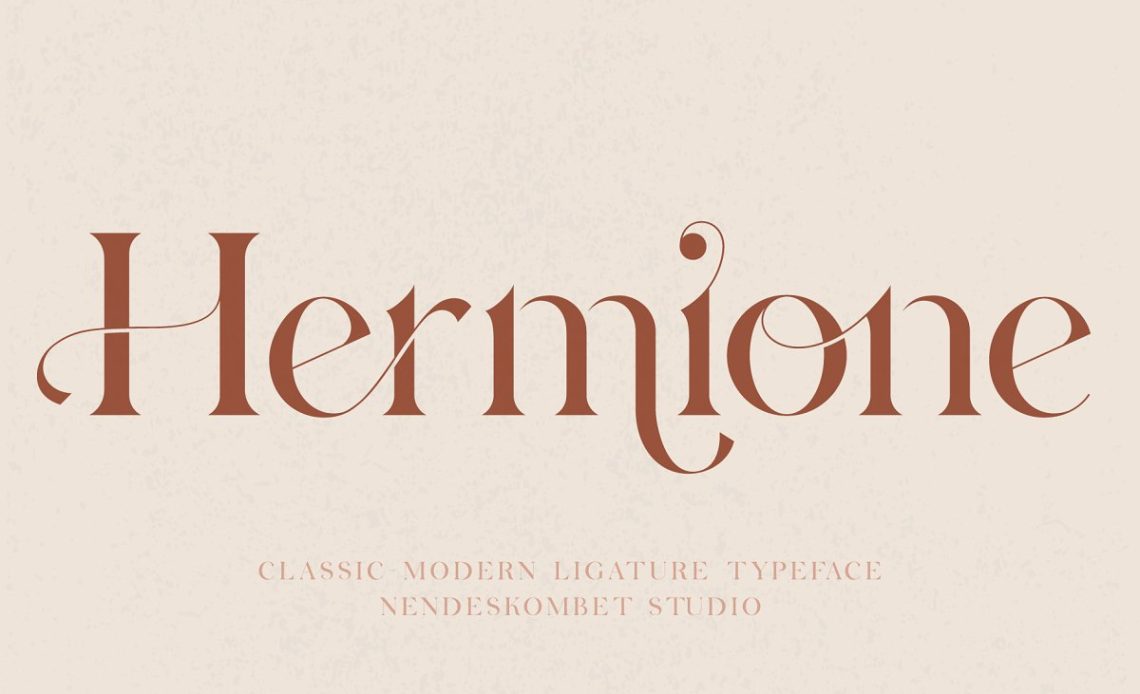
Are you looking for a font that will elevate your designs and stand out from the rest? Look no further than Hermione, the classic-modern ligature typeface created by Husain Assyahid of NendesKombet Studio.
Hermione is a serif font that exudes elegance and sophistication. It features 48 ligatures and 63 alternates for both upper and lowercase letters, as well as numbers and punctuation, allowing you to create a truly unique design. This font is perfect for branding, logos, invitations, mastheads, and any other design project that requires a touch of class.
Not only does Hermione look stunning, but it also comes with a full set of uppercase and lowercase letters, multilingual symbols, numerals, punctuation, ligatures, and alternates. This makes it incredibly versatile and suitable for any language.
But what really sets Hermione apart is its smooth linking of letters through ligatures, giving your design a natural flow and unique character. This font is sure to make your project stand out and leave a lasting impression on your audience.
Overall, Hermione is a font that combines classic elegance with modern style. It's perfect for designers who want to elevate their projects and make a lasting impression. And with its free for personal use/demo license, there's no reason not to try it out for yourself. So why not download Hermione today and see the magic it can bring to your designs?